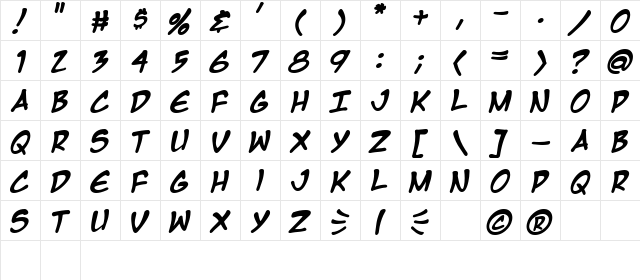
Manga Temple Bold Free Font
Manga Temple Bold
Style: Bold
Design Context for Manga Temple
Manga Temple is a composed and adaptable typeface that performs quietly and consistently across a wide range of design contexts. Its bold stroke weight gives it real presence on the page.